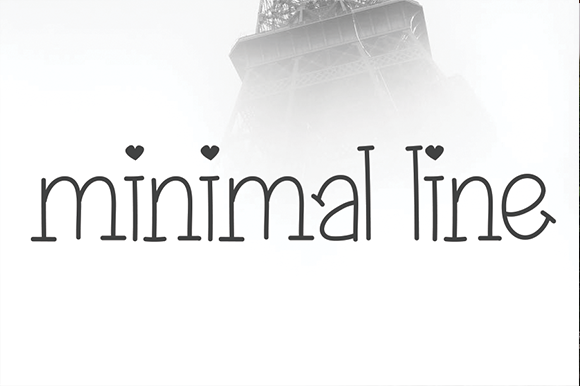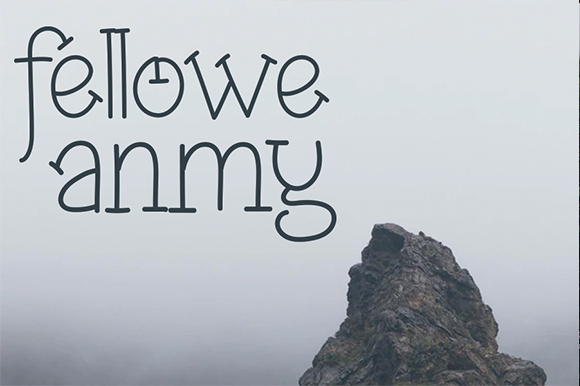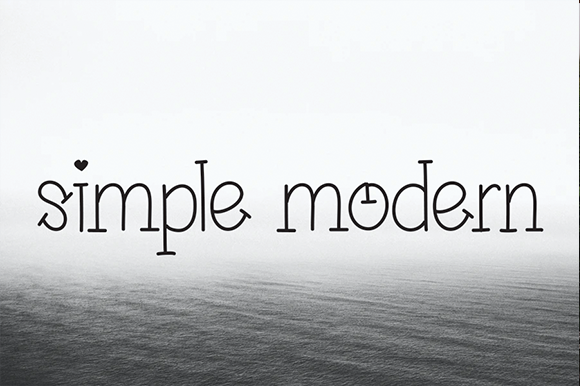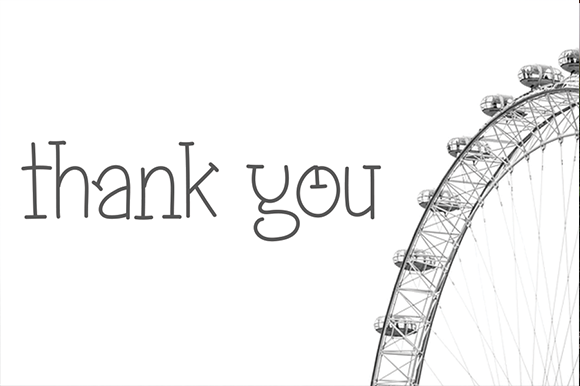
Introduction to Fonmini Font Font
Fonts play a crucial role in design, and the Fonmini Font font is a typeface that brings both character and versatility to any project. Whether you’re working on a branding project, a website, or a print design, the Fonmini Font font offers a unique style that can elevate your work.
Fonmini embodies fun, quirkiness and authenticity.
This enchanting display font will turn any creative idea into a true standout .
Key Features of Fonmini Font Font
Why Choose Fonmini Font Font?
The Fonmini Font font is more than just a typeface – it’s a design tool that helps you communicate your message with style and clarity. Its unique character set and versatile design make it suitable for a wide range of applications, from elegant invitations to bold headlines.
With its carefully crafted letterforms and balanced proportions, the Fonmini Font font ensures readability and visual appeal across all mediums.
What makes Fonmini Font font special?
The Fonmini Font font stands out with its unique design, exceptional readability, and versatility across various design applications.